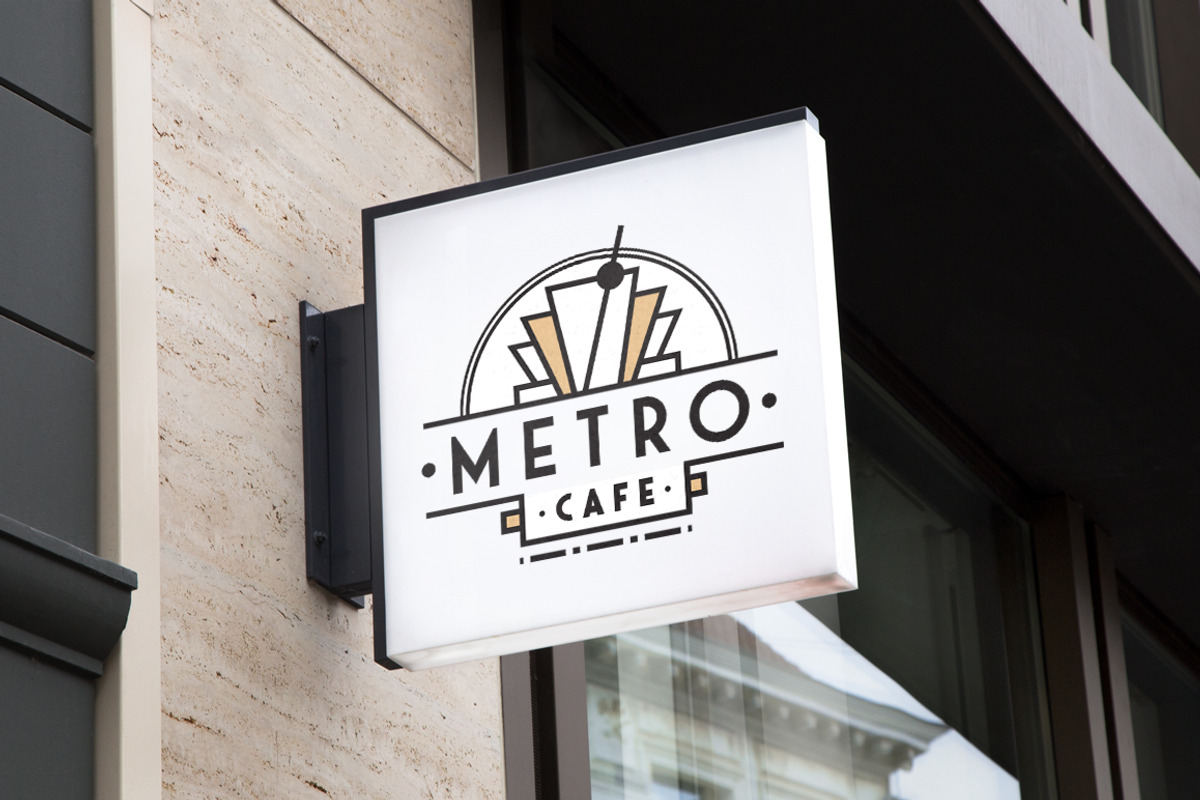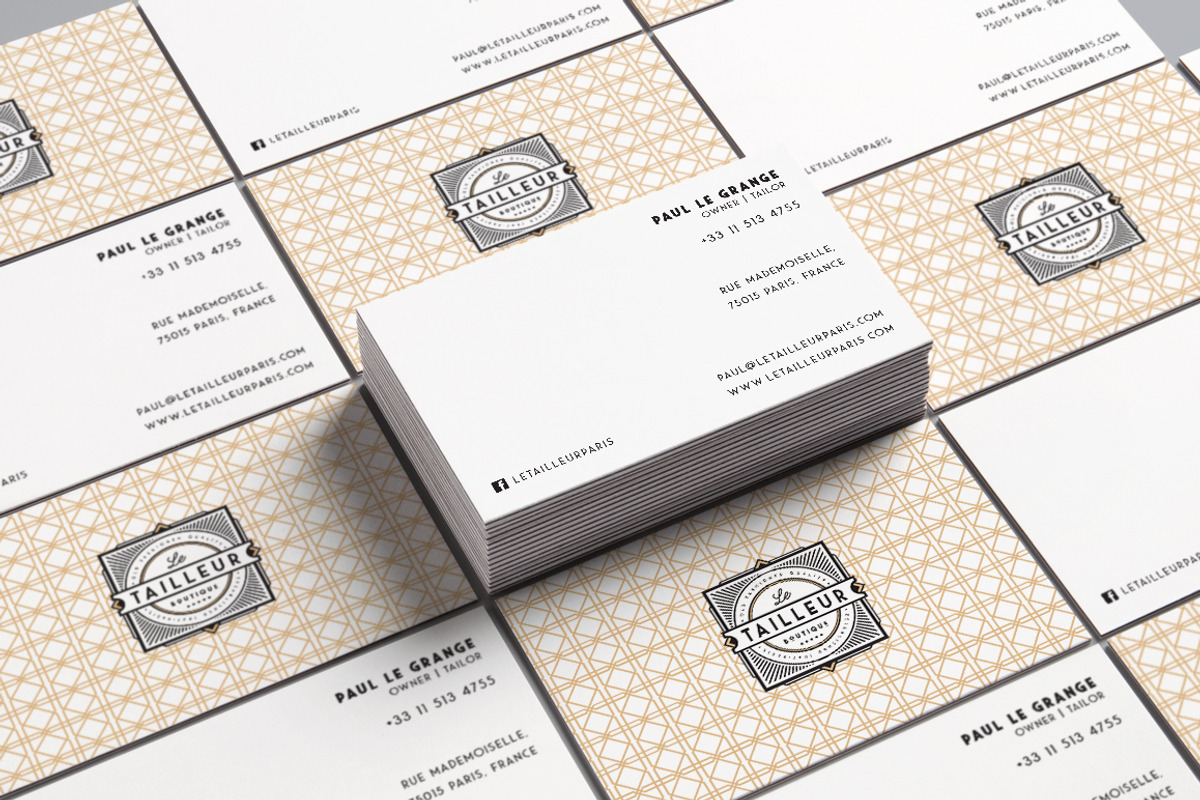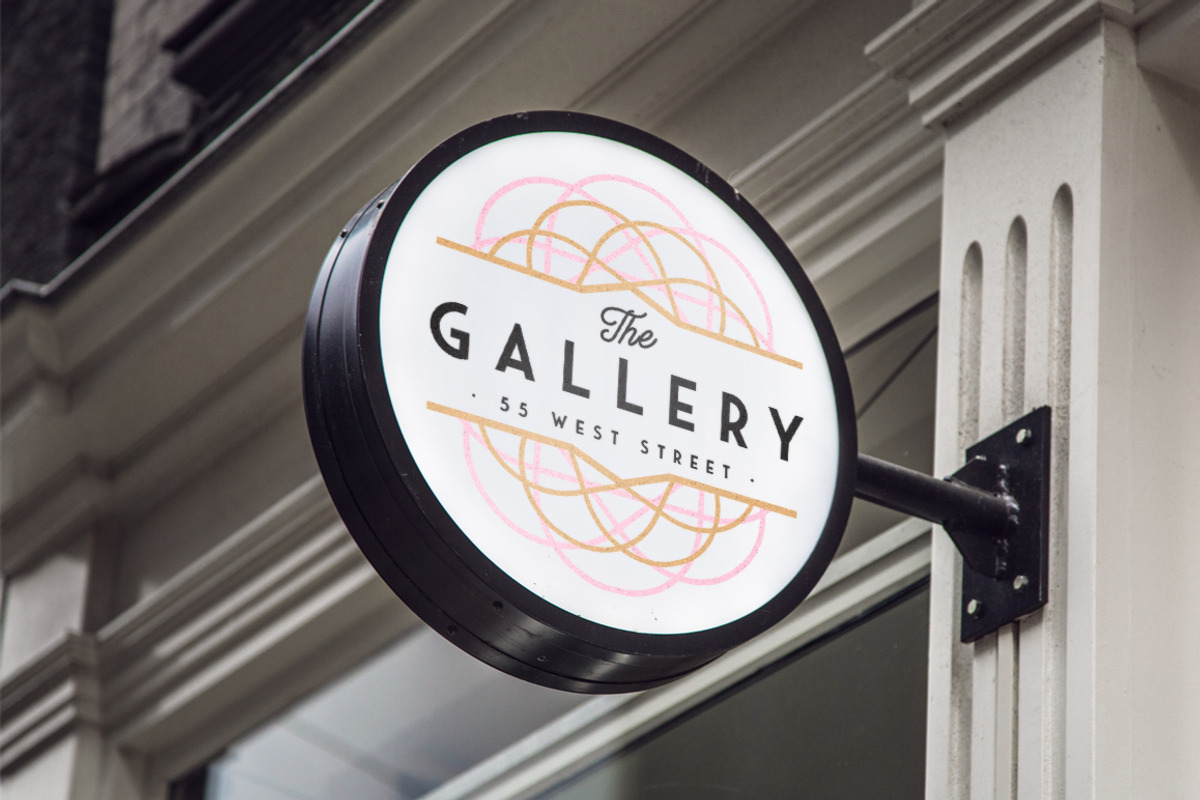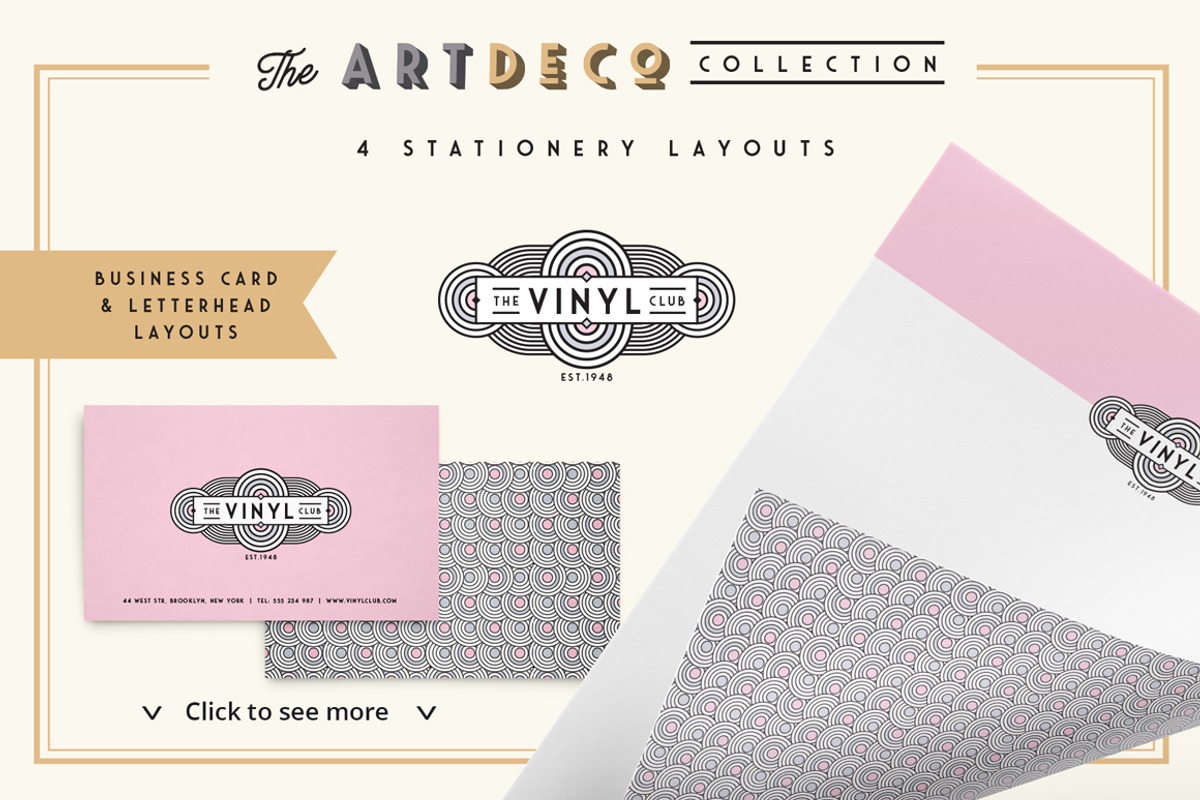
The Modernist Collection
This is a collection of fonts, logos, patterns and stationery templates to get you going in the art deco arena. This bundle has been carefully considered with a focus on versatility.
- Saveur Sans - Saveur Sans is inspired by art deco and French cafes.
- Saveur Sans Rounded.
- Bowline Script - a classic monoline cursive script font.
Logo Templates - I have included 12 carefully crafted art deco inspired logo templates. These logo templates use the fonts listed above. (these are for Adobe Illustrator CS4 and up)
Patterns: Seamless and decorative art deco inspired patterns for a great addition to any layout.
Stationery Templates: I have included 4 stationery templates in this bundle, these templates incorporate 4 of the logos into a business card and letterhead layout. (these are for Adobe Illustrator CS4 and up)